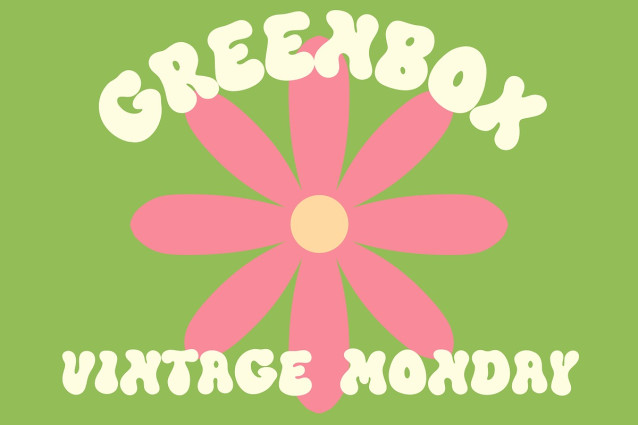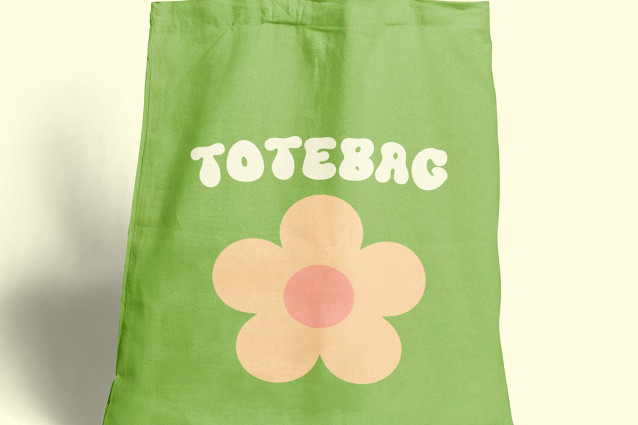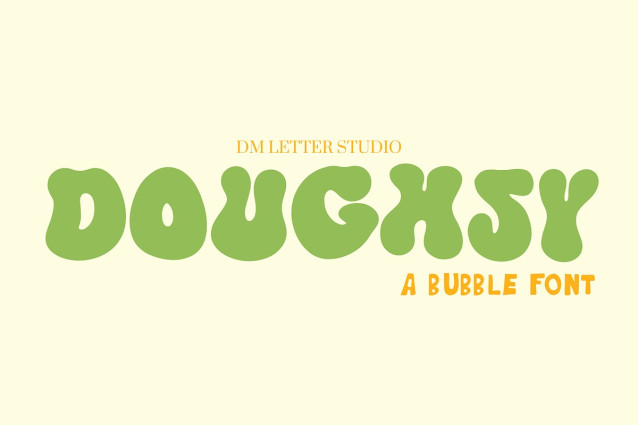
Doughsy Font
Doughsy Font is a playful bubble display font designed to look soft, thick, and full of cheerful personality. The rounded shapes feel inflated and smooth, almost like lettering made from sweet dough or marshmallow foam. Each character brings a fun and friendly vibe that instantly makes designs look lively and approachable. Use Doughsy for kids’ branding, snack packaging, stickers, YouTube thumbnails, birthday designs, playful logos, and colorful social media graphics. As a result, your typography feels fun, bold, and impossible to ignore.
First, Doughsy installs quickly and works smoothly in Canva, Photoshop, and Illustrator. Next, the thick, rounded structure keeps text readable even with bright colors and playful layouts. Then designs come together faster because the bubble style already carries personality without needing heavy effects. Moreover, bubble fonts are popular for kids’ products, food brands, and fun digital content. Therefore, Doughsy fits perfectly into cheerful display font collections.
Start with short words or playful headlines to maximize impact. After that, add soft shadows or bright outlines to emphasize the bubble effect. Because the shapes are chunky, keep the background simple so the letters stay clear. In addition, pair it with a clean sans serif for captions or supporting text. Finally, try palettes like pastel pink and cream, mint and white, yellow and orange, or sky blue and purple for a lively visual style.